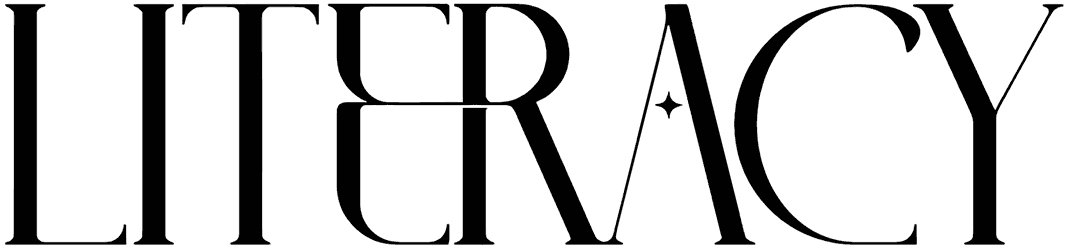
Literacy Font
Are you seeking a serious and official font to design your new website or book cover? Literacy can satisfy you. This retro font offers two weights of capital letters to combine to add depth to your writing or create an intangible shadow.
By arming yourself with this elegant font, you can double the content’s appeal without working to the bone. If the lack of lowercase letters does not create a problem in your work process, start working with Literacy.